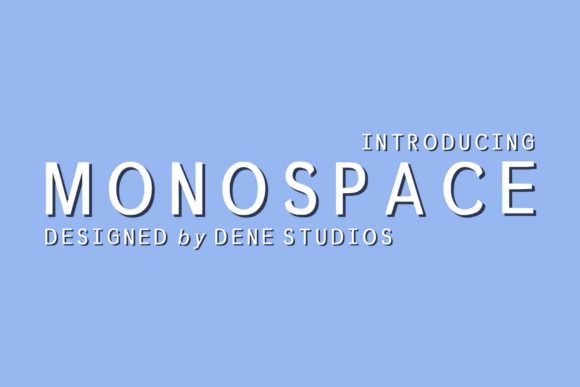
Introducing Monospace, the sans serif font that will revolutionize your digital creations. With its crisp, clean lines and modern aesthetic, Monospace is the perfect choice for adding a touch of sophistication to your designs.
Whether you're creating website banners, social media graphics, or eye-catching logos, Monospace will elevate your projects to new heights. Its versatile nature makes it suitable for a wide range of applications, from sleek and minimal designs to bold and impactful statements.
With Monospace, you'll have the power to express your creativity and make a lasting impression. Its clean and simple lines create a sense of order and clarity, while its modern vibe adds a touch of sophistication to any project.
Don't settle for ordinary fonts that blend into the background. Choose Monospace and let your designs stand out from the crowd. Its unique and eye-catching style will capture attention and leave a lasting impression on your audience.